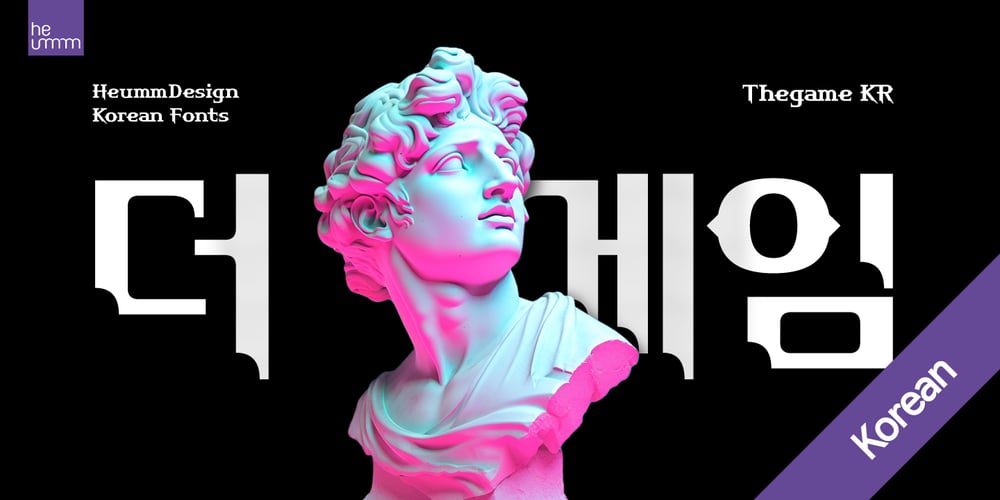
HU Thegame KR
HU Thegame KR font
HU Thegame KR Font Family was designed by Jihoon Park and published by Heummdesign. HU Thegame KR contains 1 styles and family package options. ‘HU Thegame KR’ was created with a game as a motif, and is a characteristic font with sharp and strong elements. The finishing of the same strokes gives the font a sense of unity and makes it look sharper and colder. This font is suitable for use as a headline. It contains Hangul, Korean.